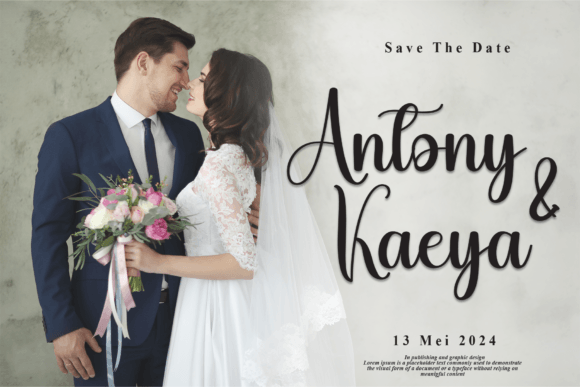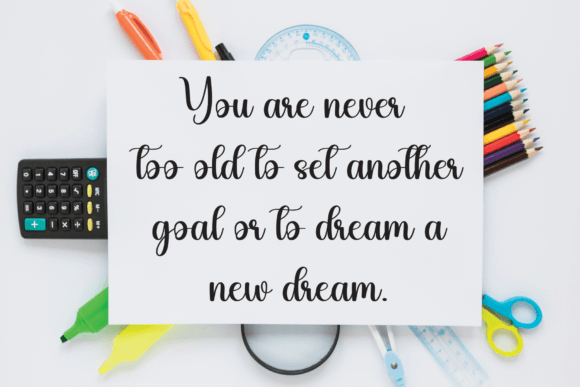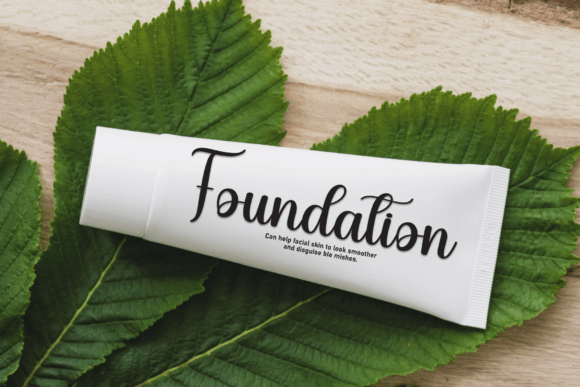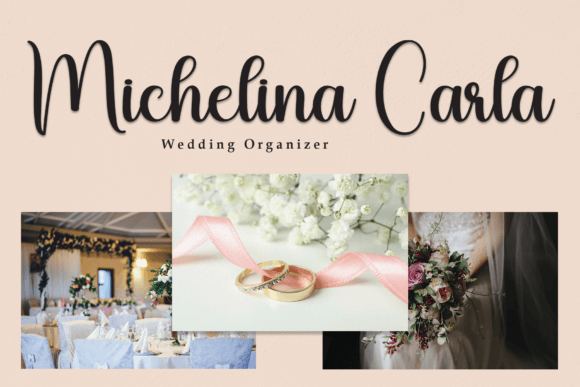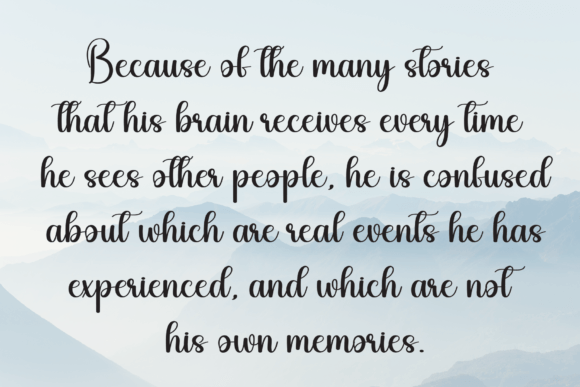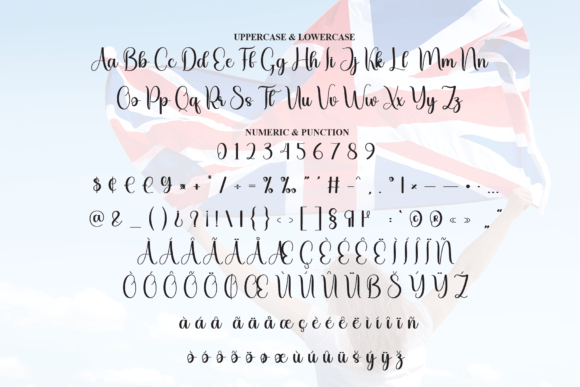
The Australian Font: Elevating Designs with Elegance and Whimsy
I still remember the design project that led me to discover the Australian font. I was working on a luxury packaging project for a high-end skincare brand, and I was struggling to find the perfect font that would convey a sense of sophistication and artisanal charm. That’s when I stumbled upon Australian, a modern handwritten font that seamlessly combines elegance with a touch of whimsy.
- ✨ Fluid, organic strokes that give the font a sense of movement and fluidity
- ✅ Refined letterforms that exude elegance and sophistication
- 💫 Perfect for upscale packaging, branding, and editorial designs
- 🎨 Versatile and adaptable to various design styles and themes
While Australian is an exceptional font, there are a few things to keep in mind:
- ⚠️ Some characters may appear a bit narrow, which can affect legibility at smaller font sizes
- 🤔 Limited availability of stylistic alternates, which may limit creative experimentation
The Designer Inspiration Behind Australian Font
The Australian font was designed by a team of typographers who aimed to create a modern handwritten font that would capture the essence of elegance and whimsy. The font’s creator was inspired by the fluid, organic strokes of traditional calligraphy and the refined letterforms of luxury branding.
Q: What is the Australian font suitable for?
A: The Australian font is suitable for upscale packaging, branding, and editorial designs that require a sense of elegance and sophistication.